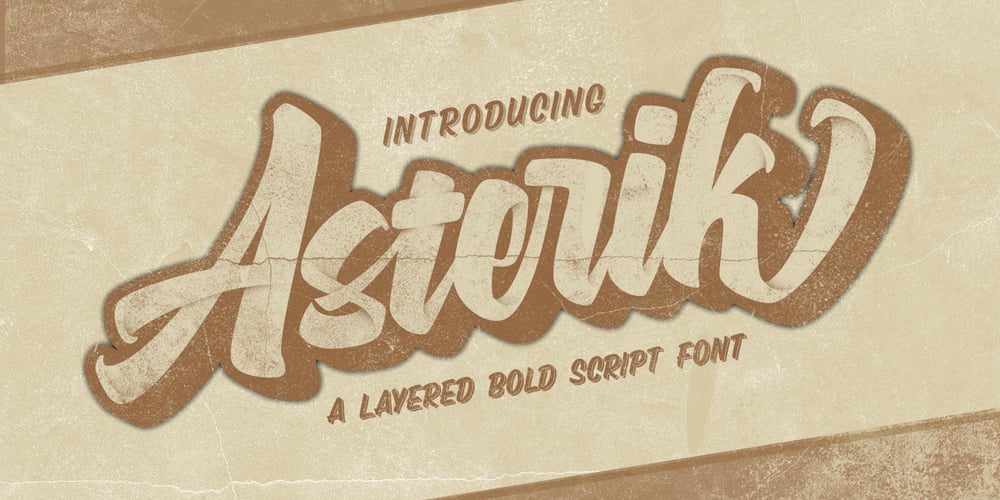
Asterik Font Family was designed by Rochadi Sudarma and published by Rochart. Asterik contains 4 styles and family package options. Asterik is a bold script and also provides some Stylistic Alternates, Ligatures, Contextual Alternates and Swashes, Multilingual support and already PUA encoded. This font is made with Horizontal/Vertical anchor points so this font is clean. It will be great for Logotypes, Posters, Digital Lettering Arts, Clean Design, Branding Design, Sign, Merchandise and Social Media Posts. Please visit our popular products: https://www.myfonts.com/fonts/rochart/bellsmore-brush/ Thank you!